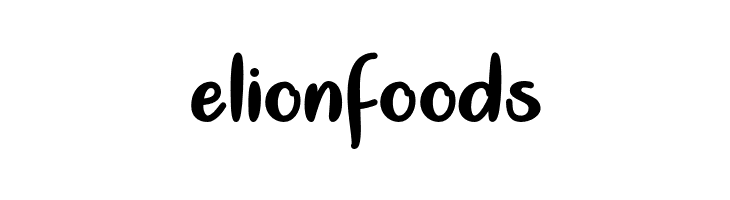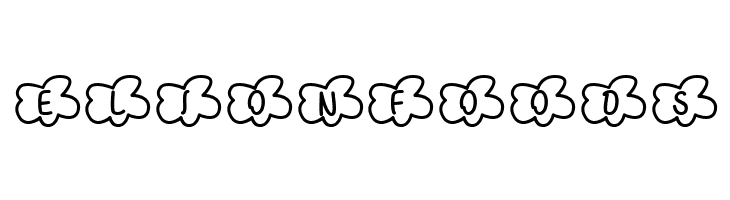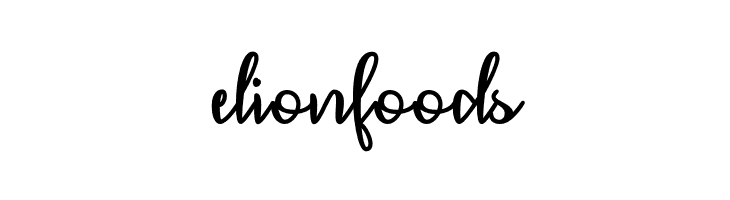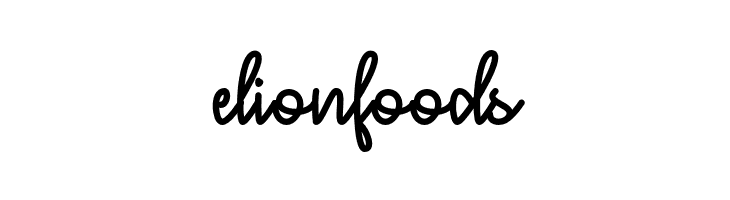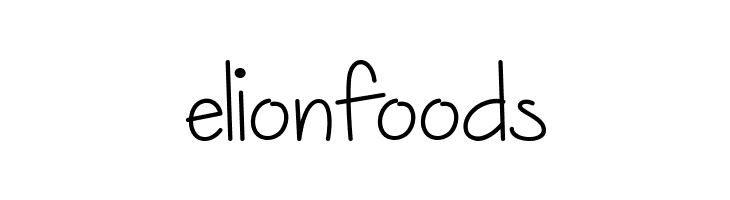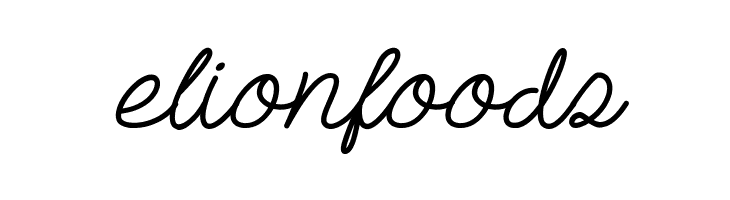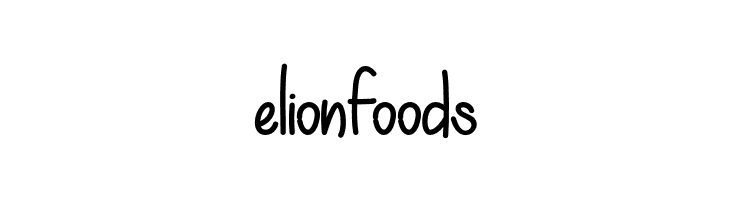
A playful, handwritten font with smooth, rounded edges and a whimsical style.
A playful font with characters enclosed in cloud shapes, ideal for cheerful designs.
A charming calligraphic font with flowing, interconnected letterforms.
A playful, handwritten script font with fluid, interconnected strokes.
A playful, handwritten font with a casual and friendly appearance.
A playful, handwritten font with a whimsical and friendly style.
A cursive, handwritten-style font with smooth, interconnected letters.
A playful, handwritten font with a casual and informal style.
A playful, handwritten font with rounded edges and a casual style.
A playful, handwritten font with smooth, rounded edges and a friendly appearance.